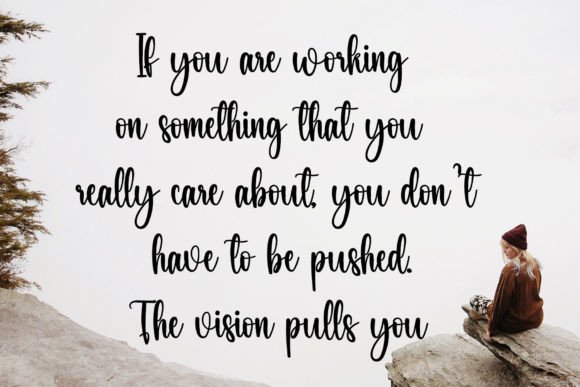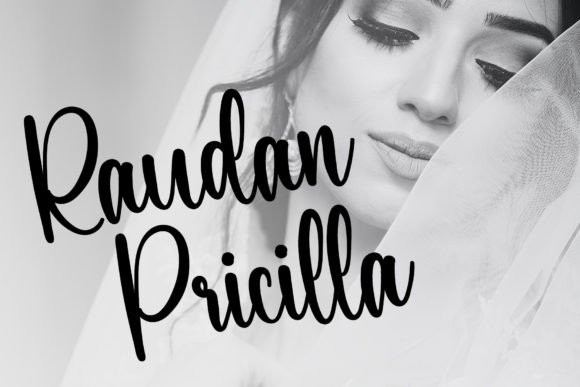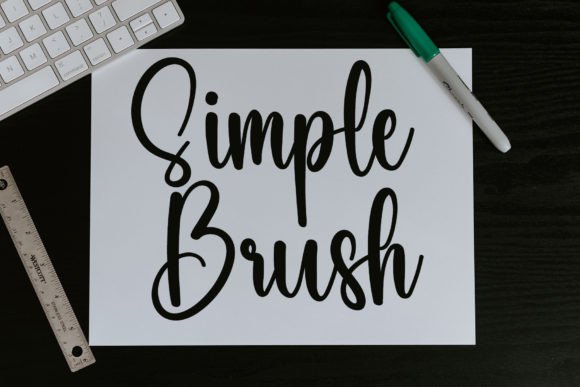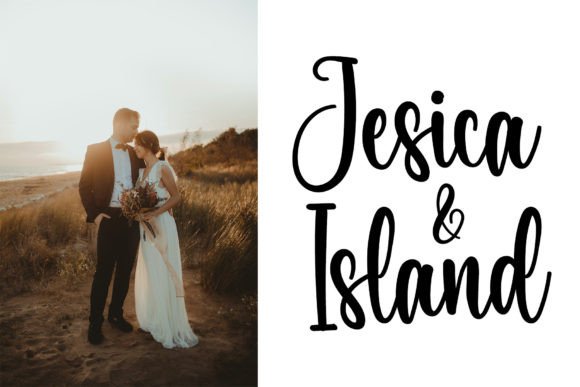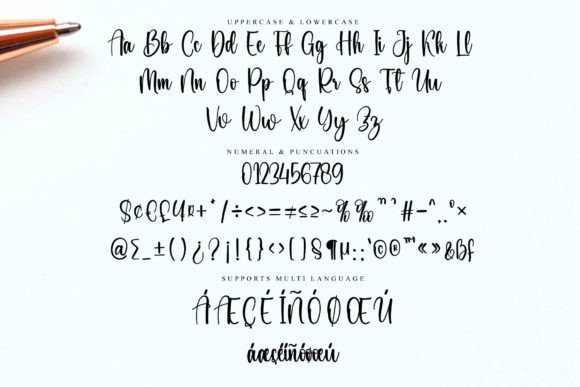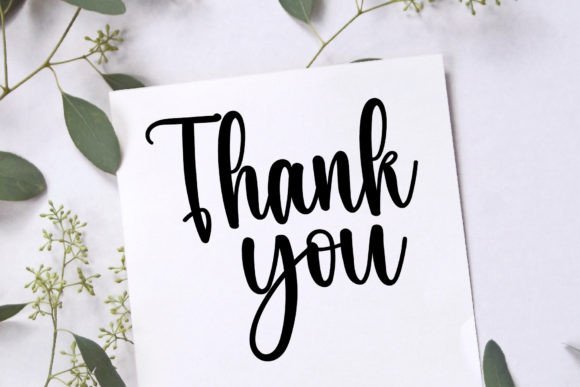
Introduction to Setting Font
Have you ever found yourself staring at a blank canvas, struggling to bring your creative vision to life? It’s a familiar feeling for many designers, but what if you had the perfect tool to elevate your work and make it truly shine? That’s where the Setting Font comes in – a high-quality, stylish handwritten font that’s sure to add a touch of sophistication to any creative project.
As a valuable design resource, the Setting Font is perfect for designers who want to add a personal touch to their work. With its impeccable form and contemporary atmosphere, this font is inspired by timeless classic calligraphy and is designed to enhance the beauty of your projects. Whether you’re working on a branding project or a free download, the Setting Font is an excellent choice for anyone looking to add a unique and creative element to their design.
Honest Review: Setting Font
I recently had the chance to work with Setting Font, a design resource that caught my attention with its high-quality typography. I used it for a creative project that required a clean and modern aesthetic, and I must say, it delivered.
What works well: ✨ The font is highly customizable, allowing me to adjust the size, color, and style to fit my design needs. The transparent background made it easy to integrate with my existing design elements. The font is also incredibly versatile, suitable for a wide range of creative projects, from digital marketing materials to print design.
Overall, I’m impressed with Setting Font’s quality and versatility. While it may not be perfect, it’s a great addition to any designer’s toolkit, especially for those working on high-quality creative projects.
Setting Font is ideal for creating eye-catching headings, stylish quotes, and informative captions. It’s also useful for designing marketing materials, social media graphics, and website content. Whether you’re working on a personal project or a commercial campaign, Setting Font can help you achieve a high-quality, professional look.